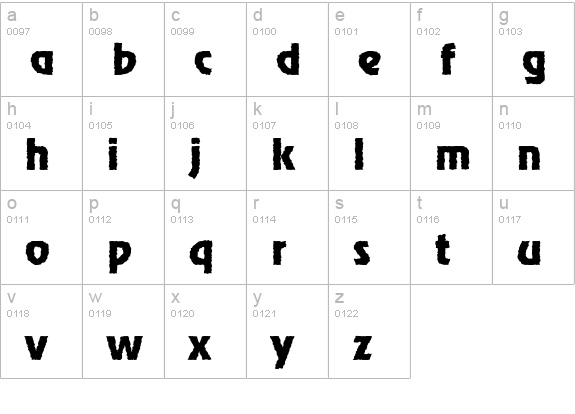
Grunge Siskel Normal is the standard, neutral variant in the Grunge typeface family \xE2\x80\x94 well suited to general body text, paragraphs, and standard typographic work.
Grunge Siskel Normal is a gritty and edgy font that captures the rebellious spirit of the grunge movement. With its rough edges and distressed appearance, this font exudes a raw and authentic vibe that is perfect for adding a touch of urban flair to your designs. The bold and rugged letterforms make a strong statement, while the unique texture gives it a distinctively vintage feel. Best of all, Grunge Siskel Normal is available for free download at FontsMarket.com. Whether you're working on a poster, album cover, or any other design project that calls for a touch of grunge, this font is a versatile choice that will make your text stand out. Embrace the unconventional and unleash your creativity with Grunge Siskel Normal.